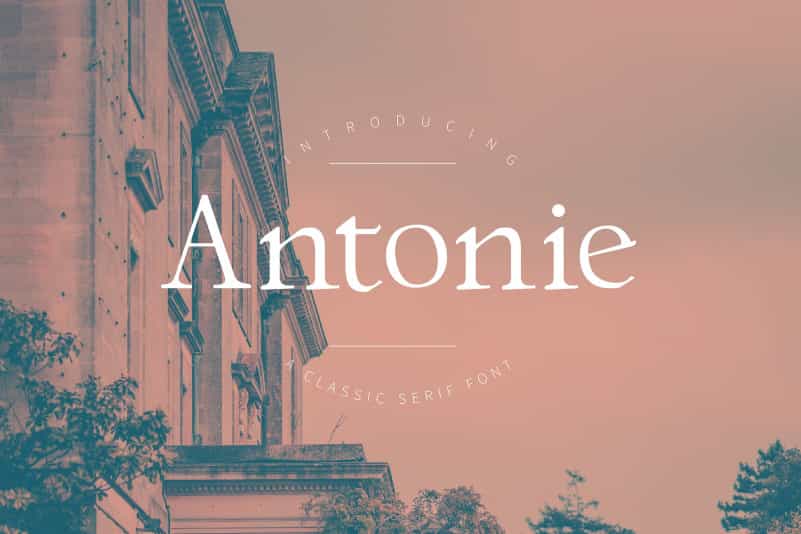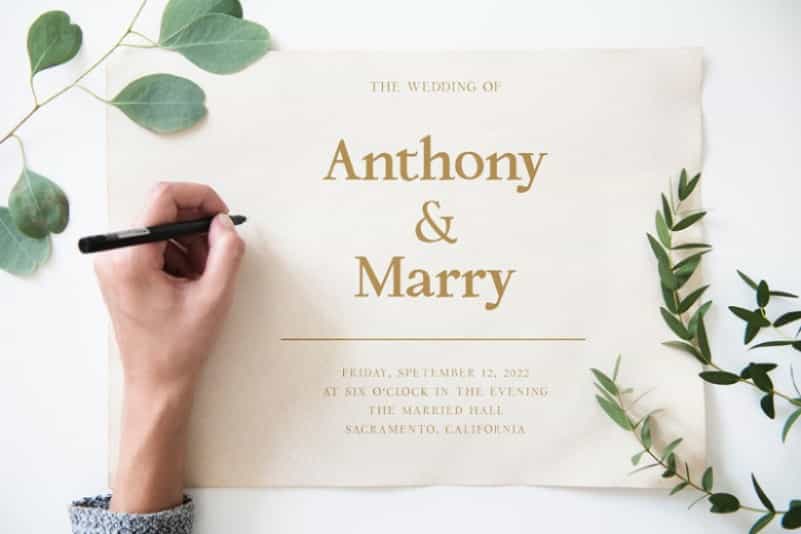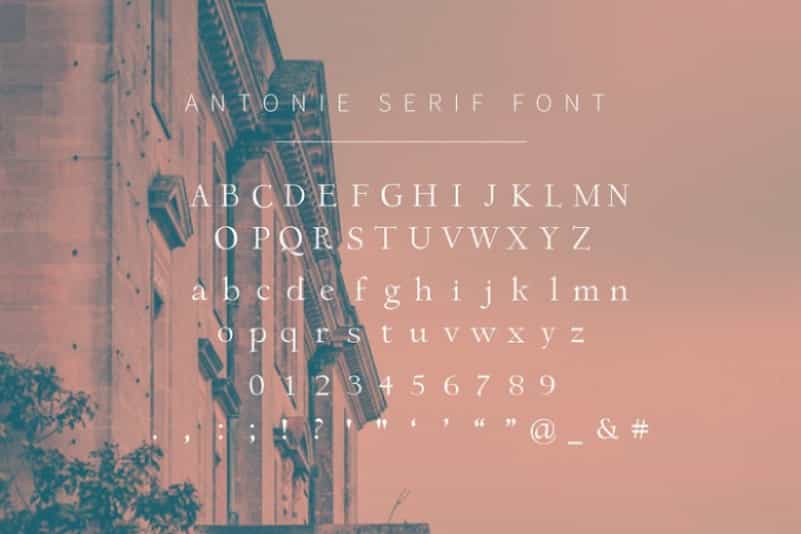
Discover Antonie Classic Serif Font, part of the Serif Basic collection—a versatile and unique font perfect for adding a personal touch to your projects. Download it for free and enjoy crafting designs with style, from invitations to social media posts. This font is available exclusively for personal use, giving you the freedom to create without limits. Unlock your creativity with Antonie Classic Serif Font today!
Antonie is a typography with an upper case and a lower case that is provided by Type Factory and can easily be noticed even at smaller and larger sizes. This serif font has many classic vintage style options, so this font is ideal for logos, t-shirts, headers, posters, packaging, or anything else!